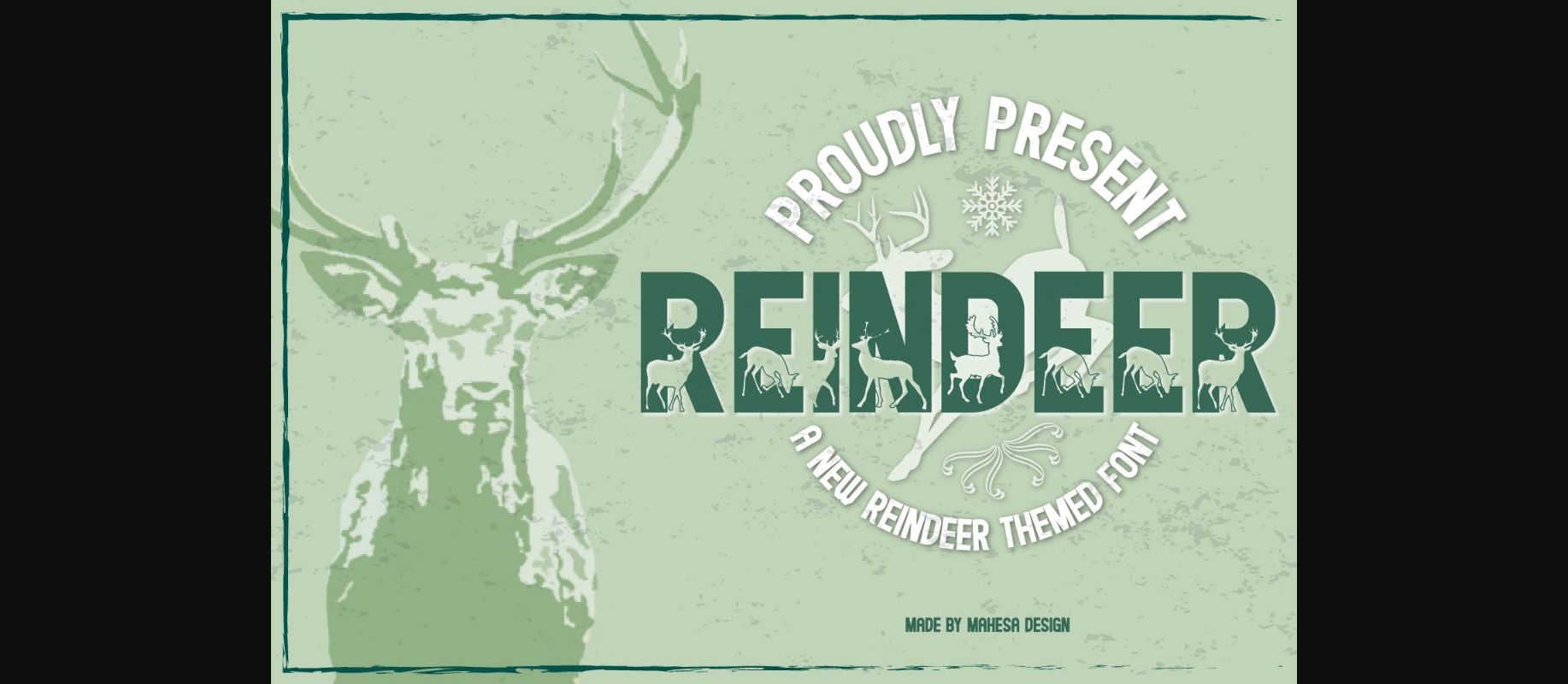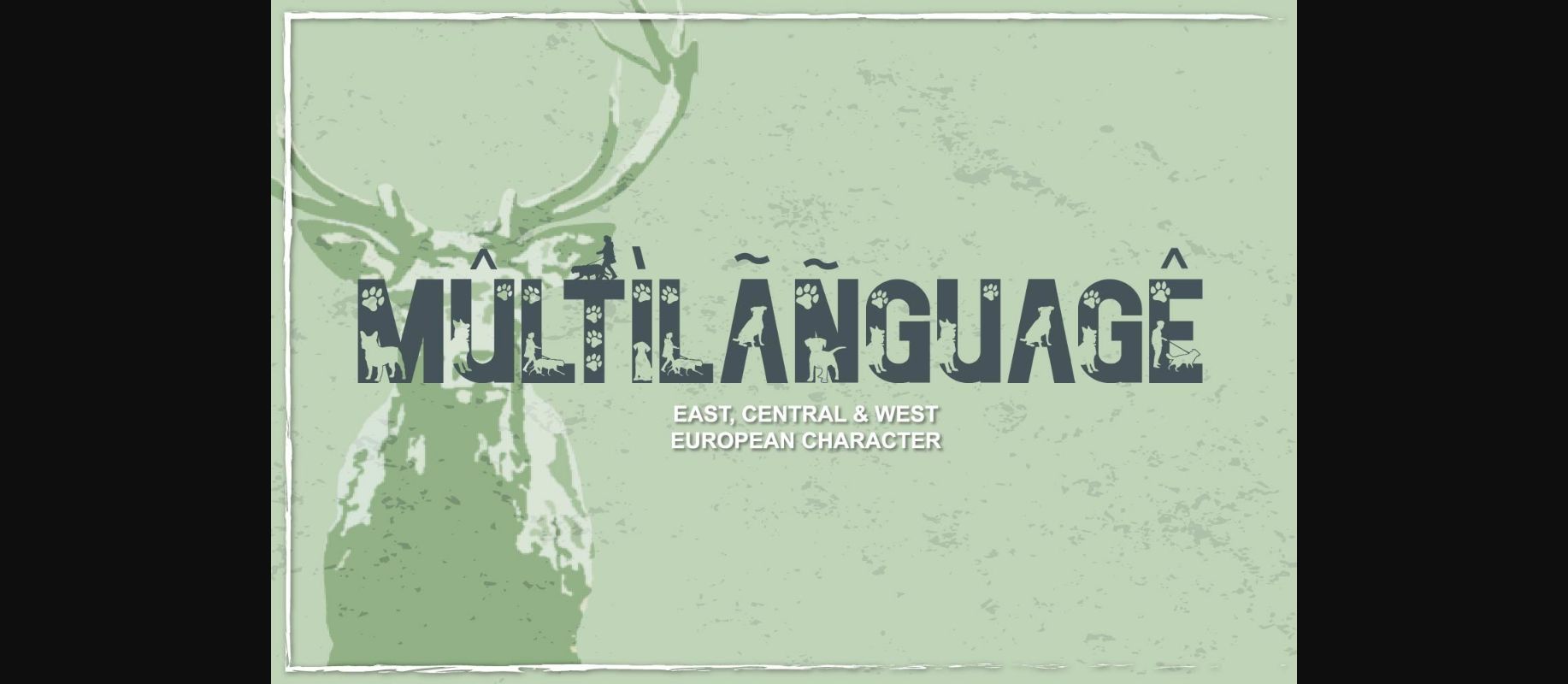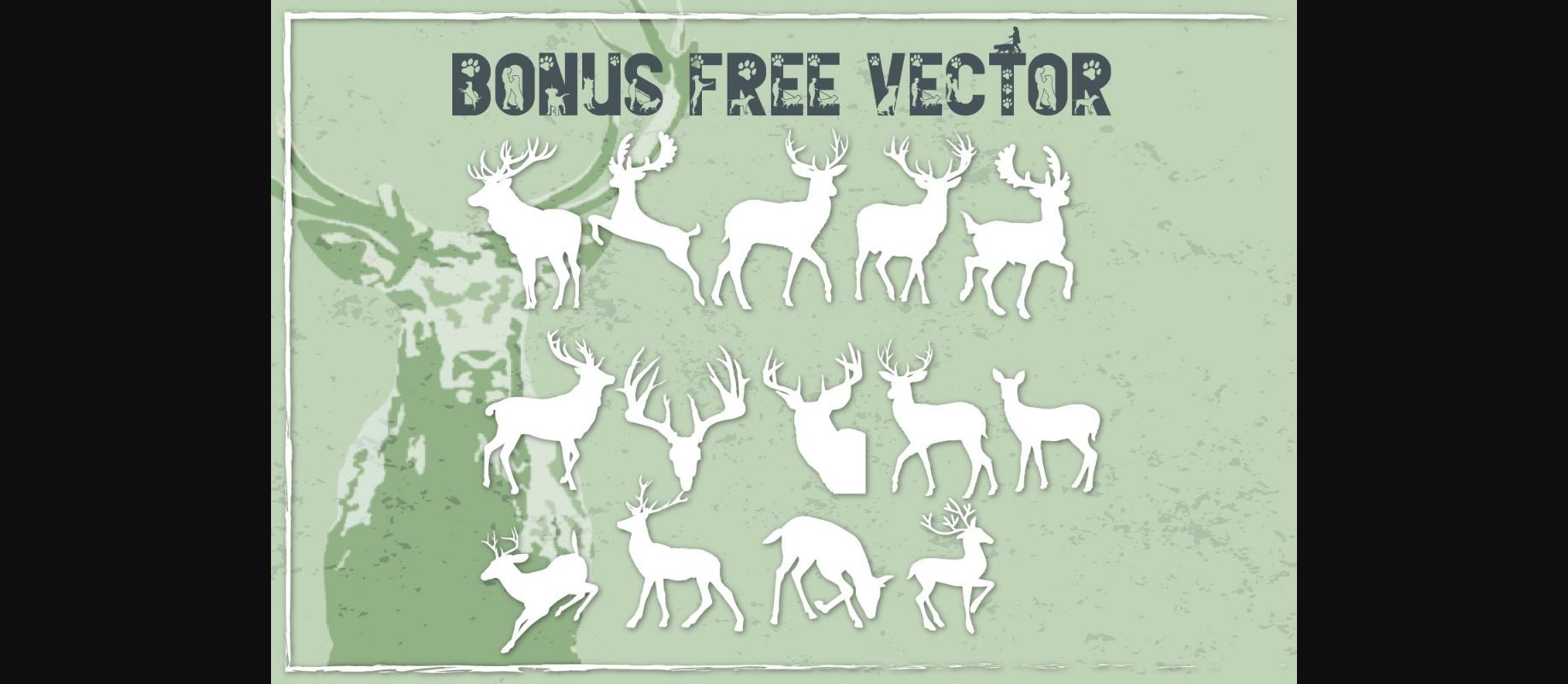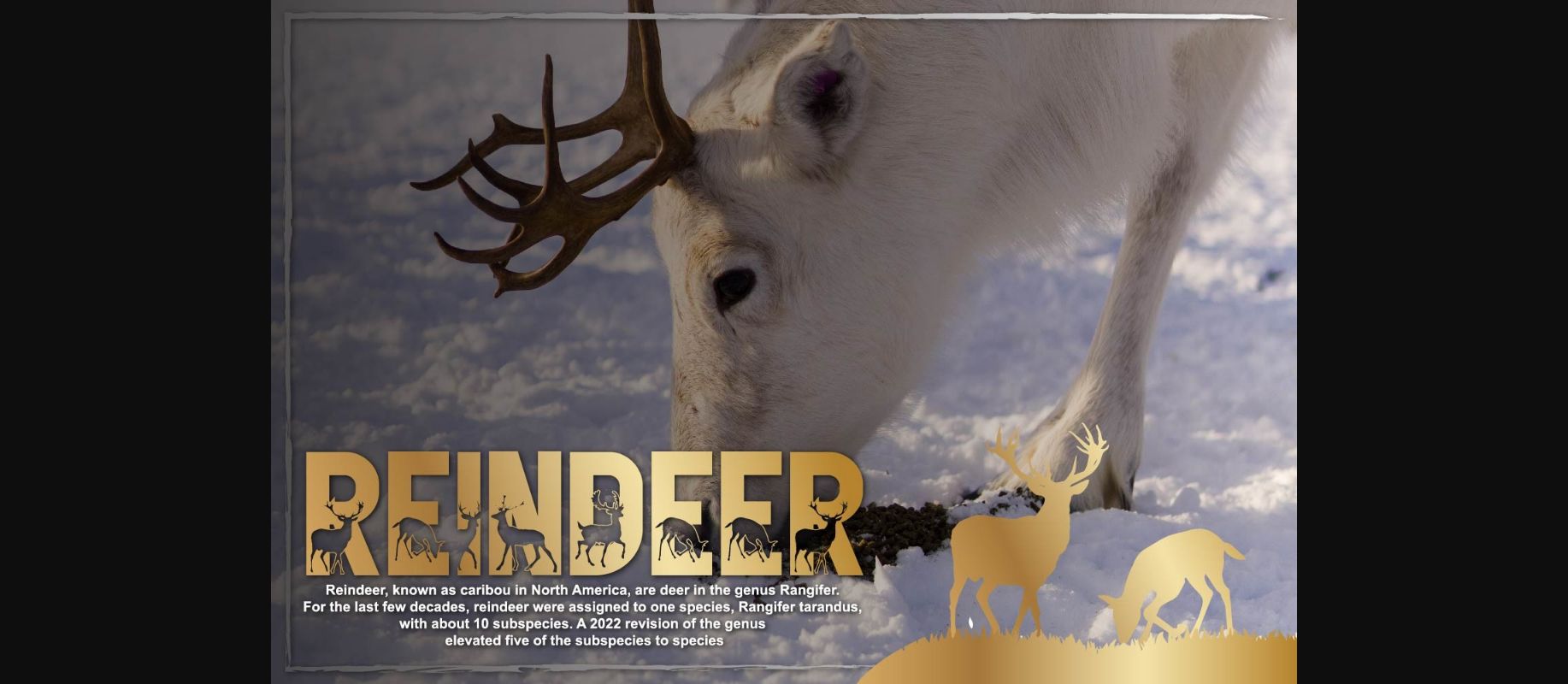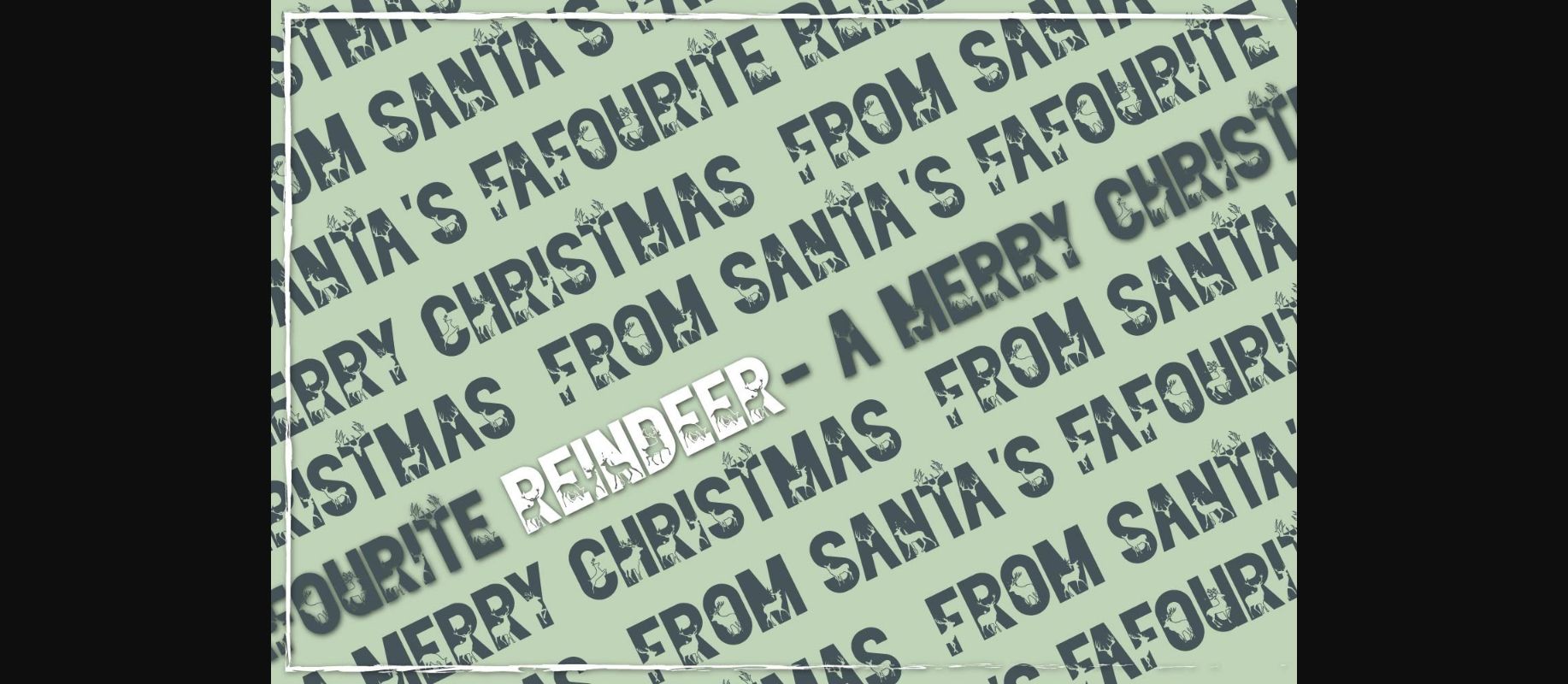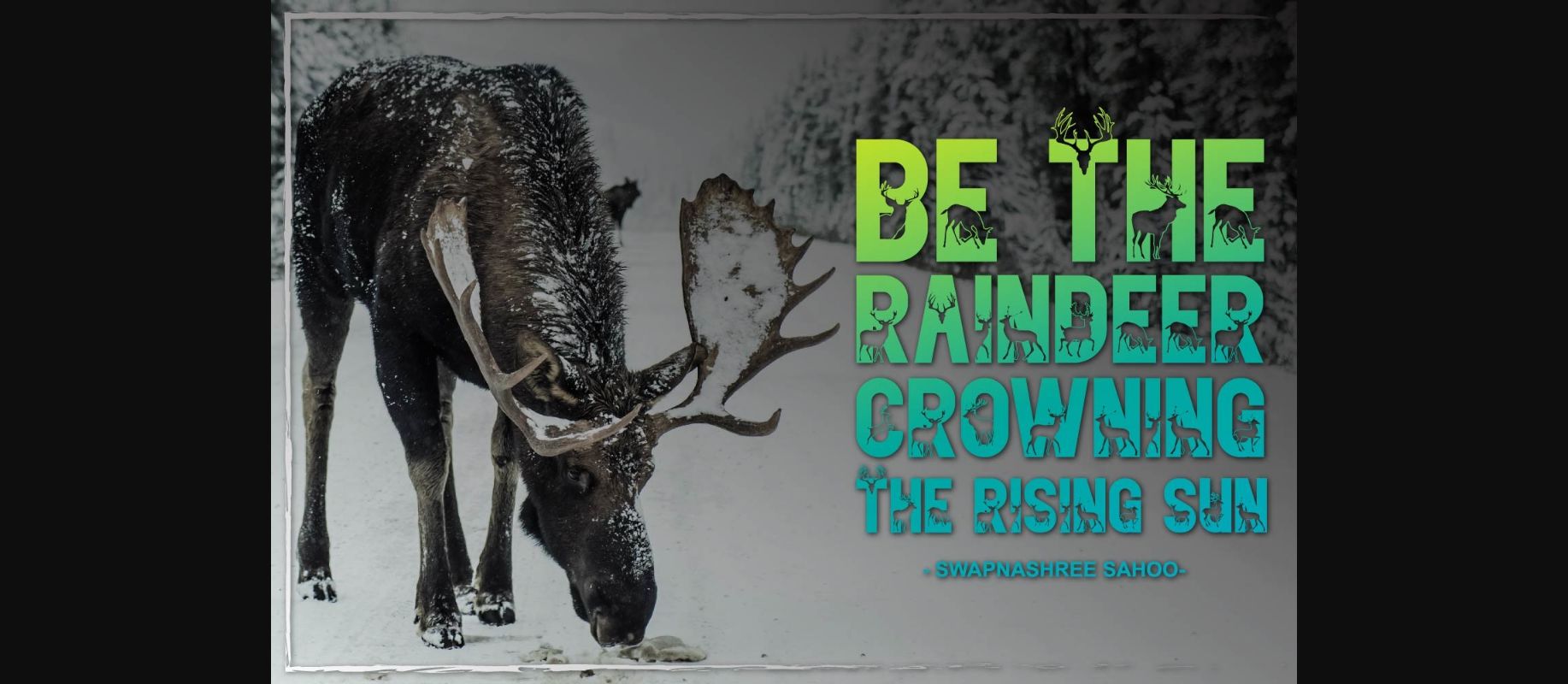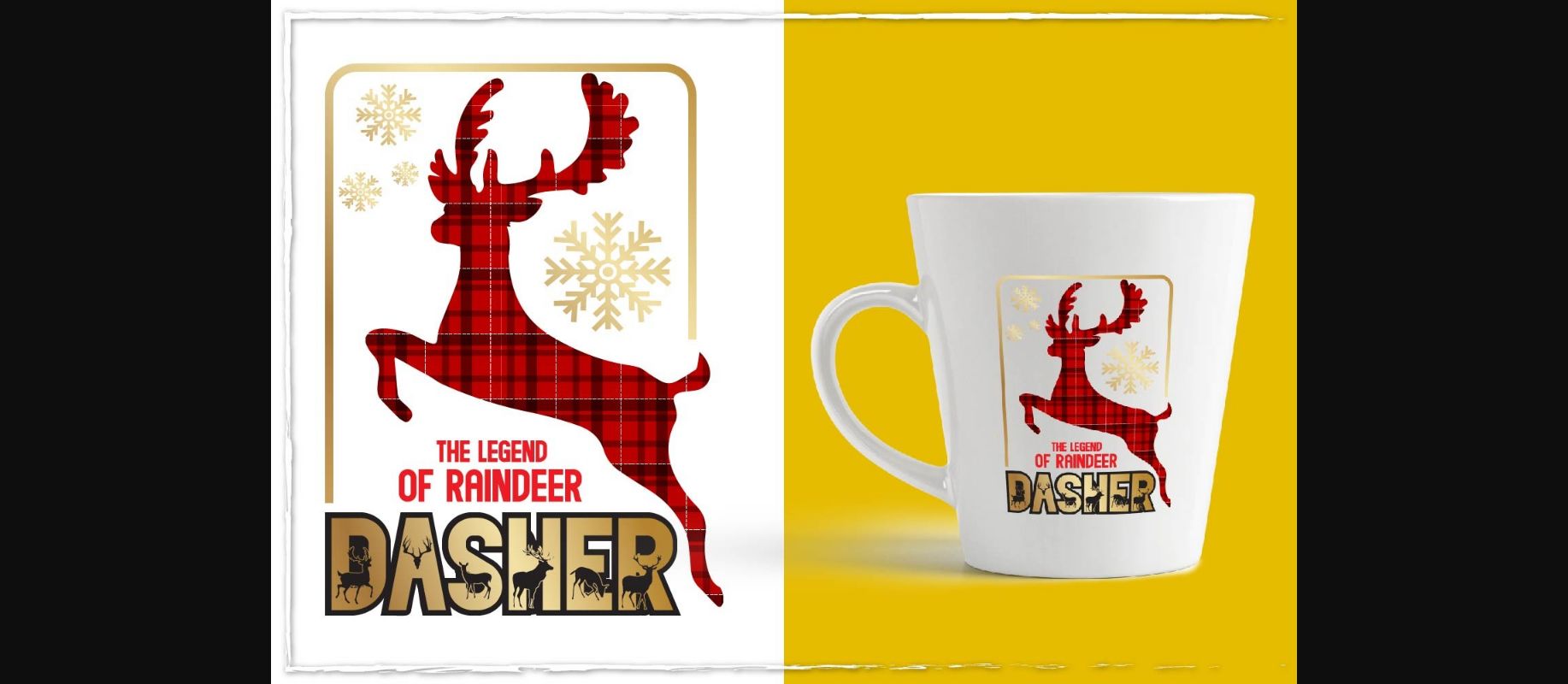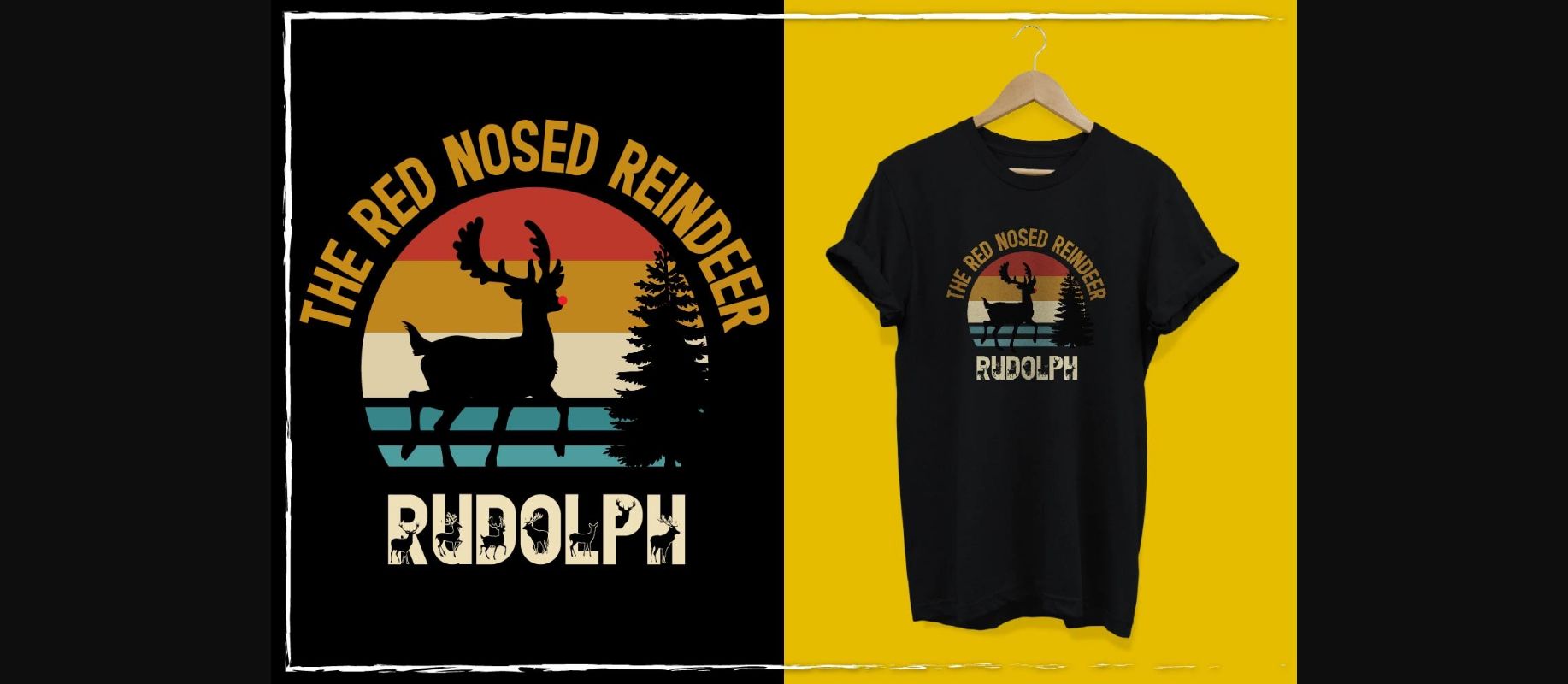
About Reindeer Font
Introducing the Reindeer font!
This font is perfect for all your Christmas projects. Each letter is decorated with cute deer making it a fun and festive addition to any design. Perfect for cards, invitations, flyers, and more, the deer destination font is sure to add holiday cheer to your next project. So don’t wait, add some festive flair to your designs today with this font.